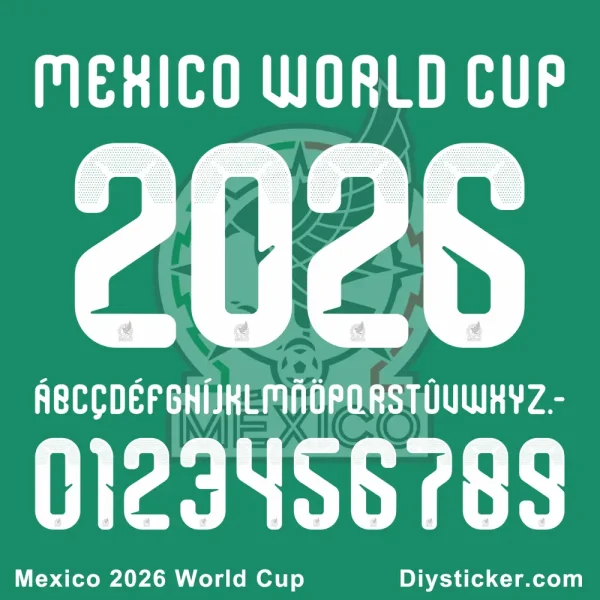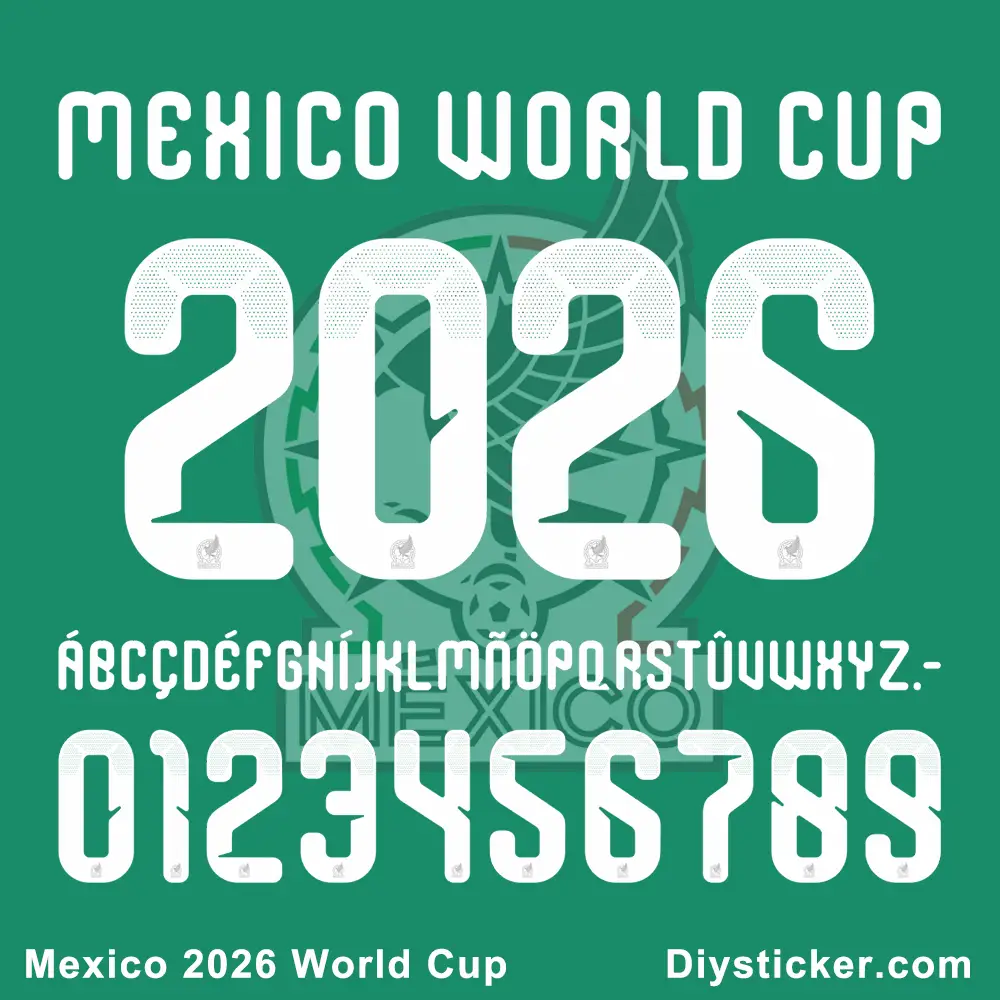
Mexico 2026 World Cup Font Downloads
Show your support for El Tri with our officially-inspired Mexico 2026 World Cup font! This professional design asset is essential for fans and creators who want to capture the dynamic spirit of the Mexican national team in their projects.